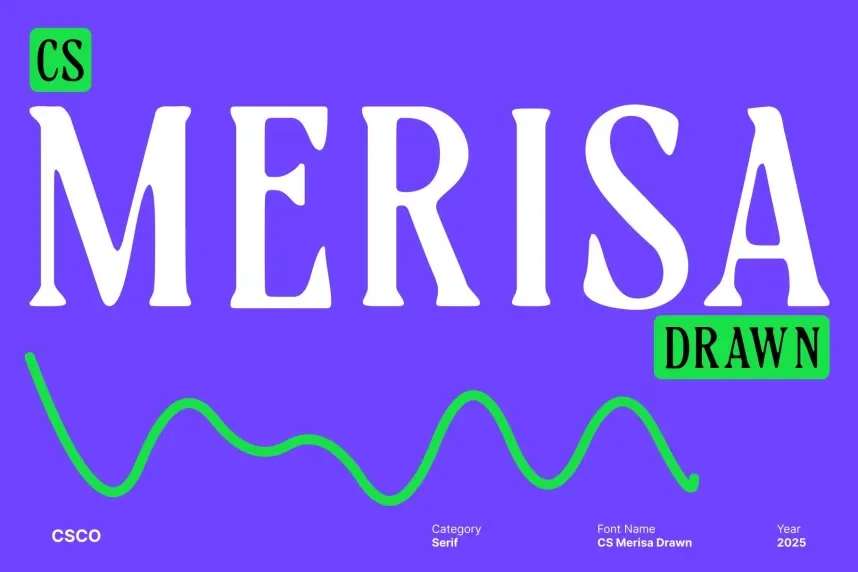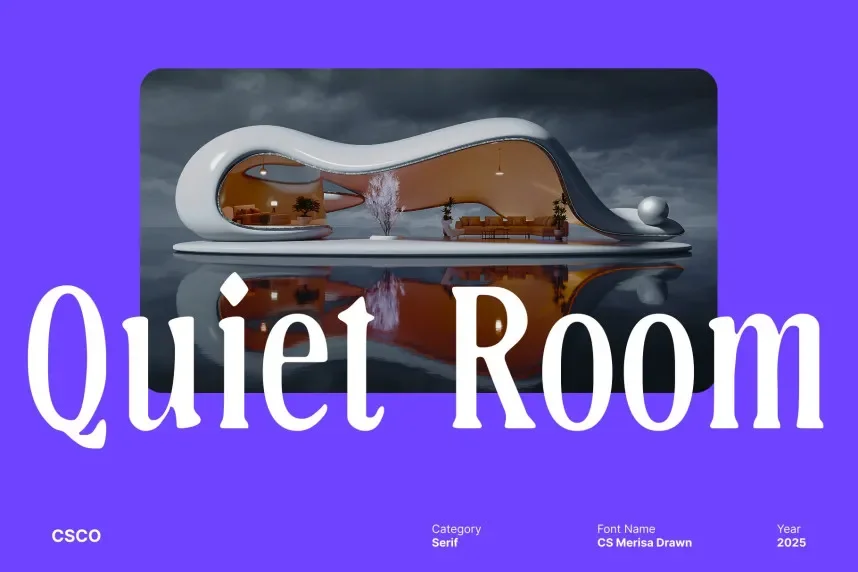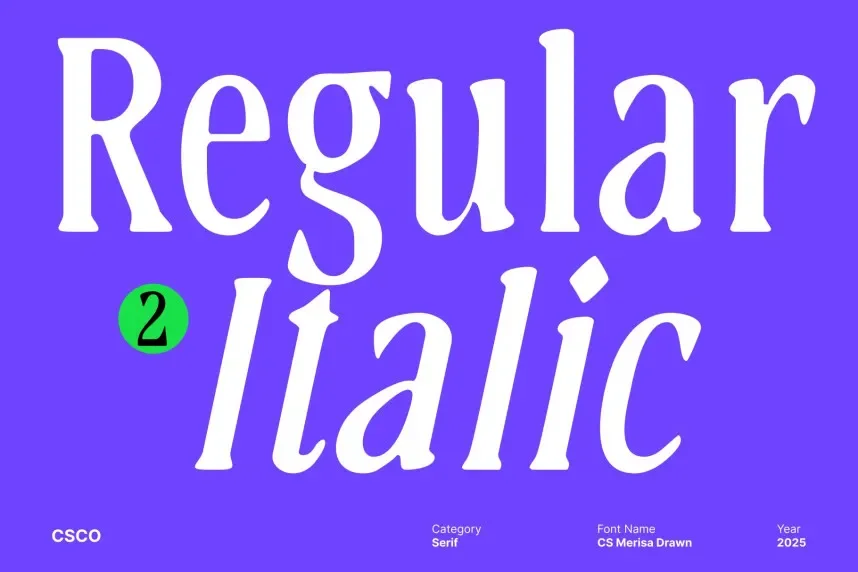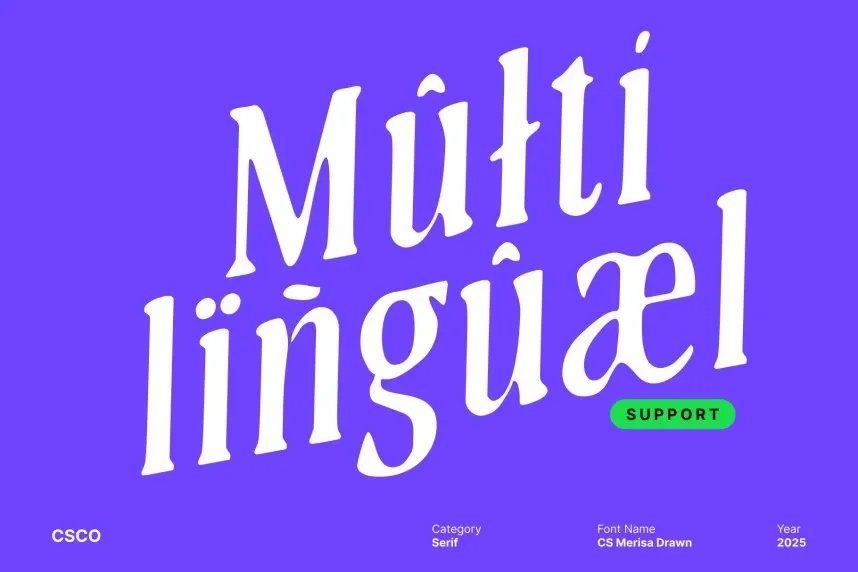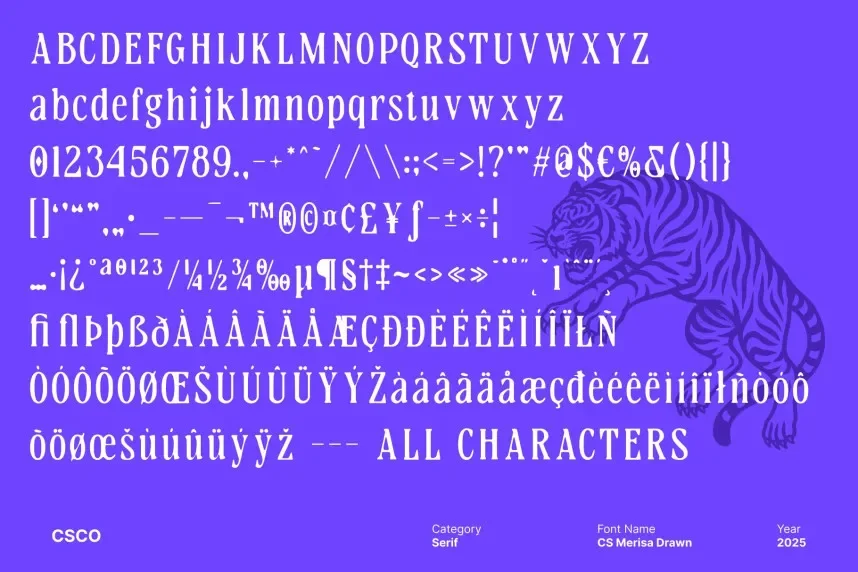
CS Merisa Drawn Font is a hand-crafted typeface that brings a personal touch to any design. With its unique letterforms and artistic flair, it’s perfect for custom invitations, logos, and creative branding projects.